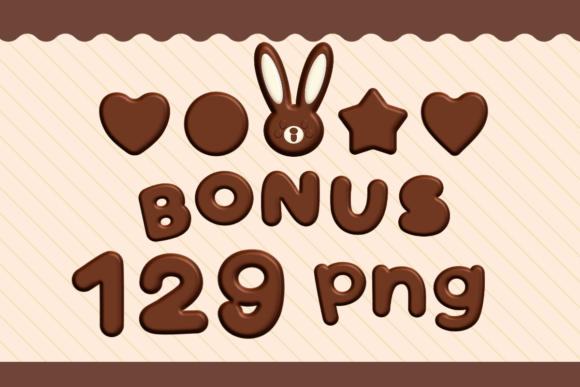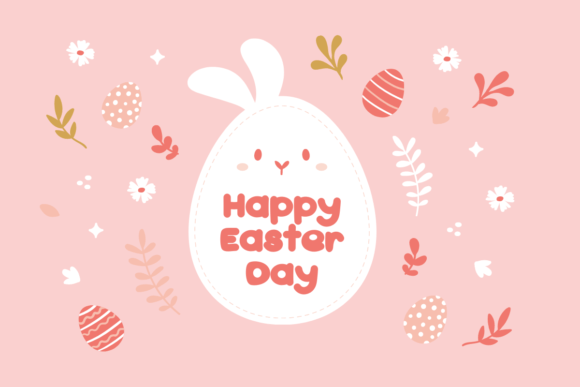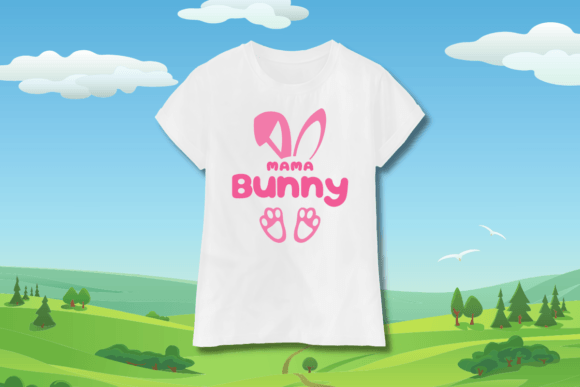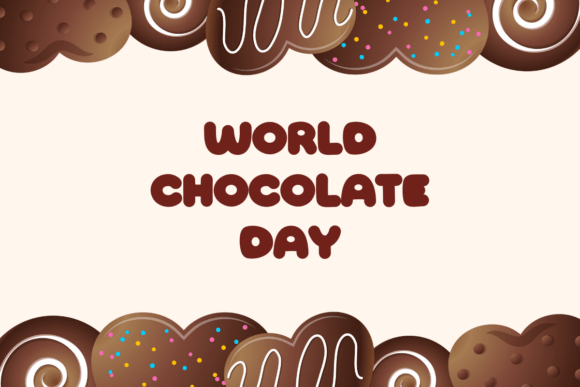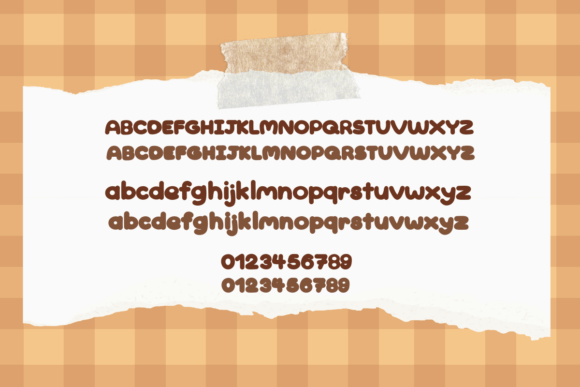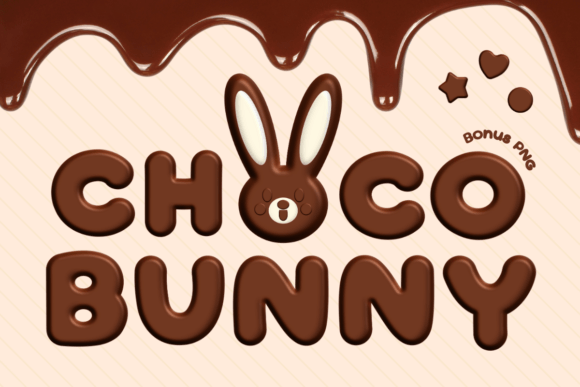
Introducing Choco Bunny Font: The Sweetest Addition to Your Design Collection
Are you looking for a font that adds a touch of whimsy and sweetness to your designs? Look no further than Choco Bunny Font, a charming display font that’s perfect for a variety of creative projects. Inspired by the richness of chocolate, this font is sure to delight designers, crafters, and anyone who loves a little bit of fun and playfulness in their work.
What is Choco Bunny Font?
Choco Bunny Font is a unique and eye-catching display font that’s designed to bring a smile to your face. With its chocolate-inspired style, this font is perfect for adding a touch of warmth and personality to your designs. Whether you’re working on a logo, quote, greeting card, poster, t-shirt, or any other project, Choco Bunny Font is sure to make it stand out.
Key Features of Choco Bunny Font
- Cute and Playful Design: Choco Bunny Font features a charming and whimsical design that’s perfect for adding a touch of fun to your projects.
- Chocolate-Inspired Style: The font’s chocolate-inspired style is sure to delight anyone with a sweet tooth.
- 129 Charming Alphabets and Numbers: With Choco Bunny Font, you’ll receive 129 charming alphabets and numbers that you can use to create unique and eye-catching designs.
Choco Bunny Font is perfect for a wide range of design projects, including:
- Logos: Add a touch of whimsy and personality to your logo with Choco Bunny Font.
- Quotes: Create inspiring and eye-catching quotes with Choco Bunny Font.
- Greeting Cards: Add a sweet touch to your greeting cards with Choco Bunny Font.
- Posters: Create eye-catching posters with Choco Bunny Font that’s sure to grab attention.
- T-Shirts: Design unique and fun t-shirts with Choco Bunny Font.
Why Choose Choco Bunny Font?
There are many reasons why Choco Bunny Font is a great choice for designers and crafters. Here are just a few:
- Unique and Eye-Catching Design: Choco Bunny Font features a unique and eye-catching design that’s sure to make your projects stand out.
If you’re looking for a font that adds a touch of whimsy and sweetness to your designs, Choco Bunny Font is the perfect choice. With its chocolate-inspired style, cute and playful design, and 129 charming alphabets and numbers, this font is sure to delight designers and crafters of all levels. So why wait? Download Choco Bunny Font today and start creating unique and eye-catching designs that are sure to impress.